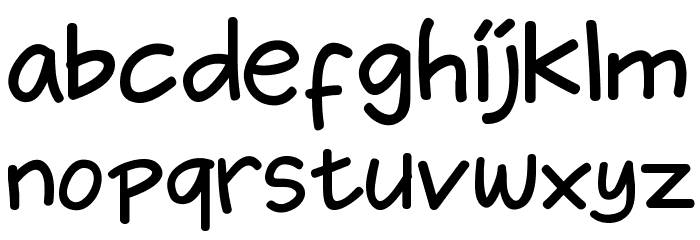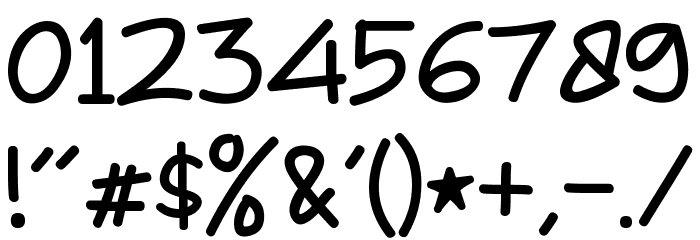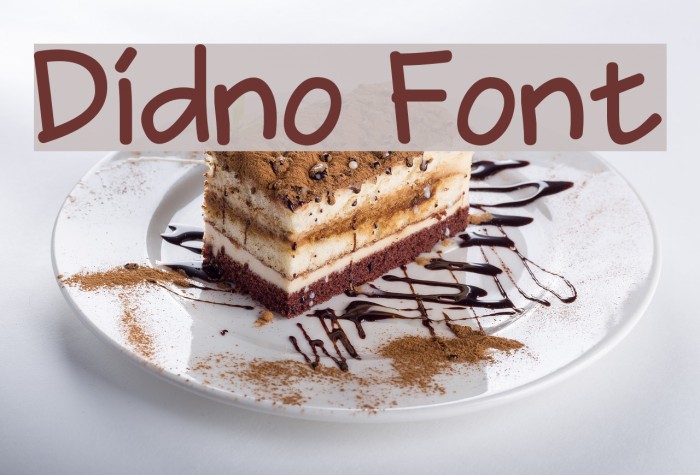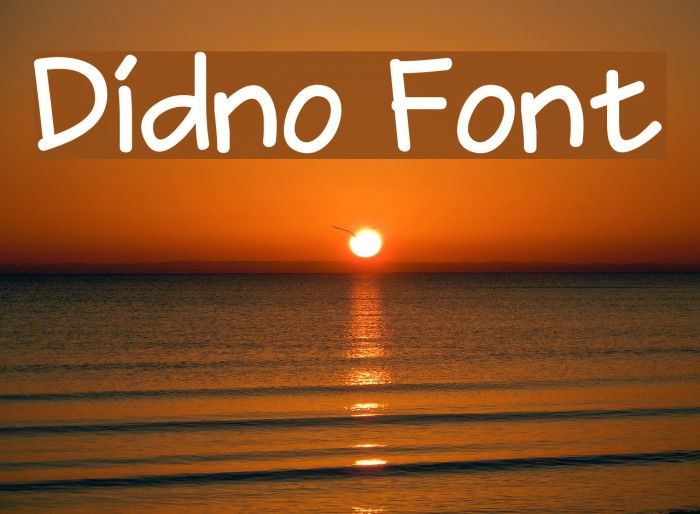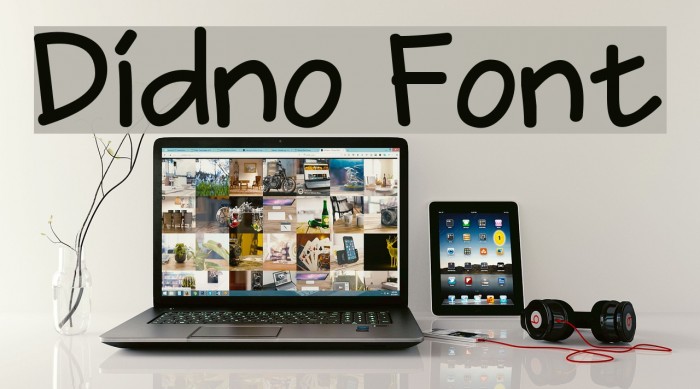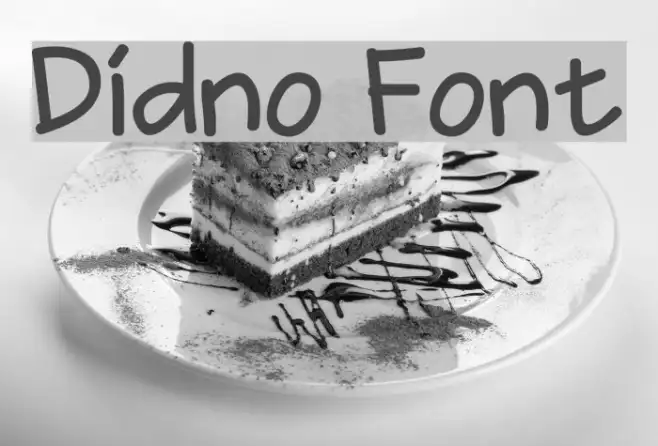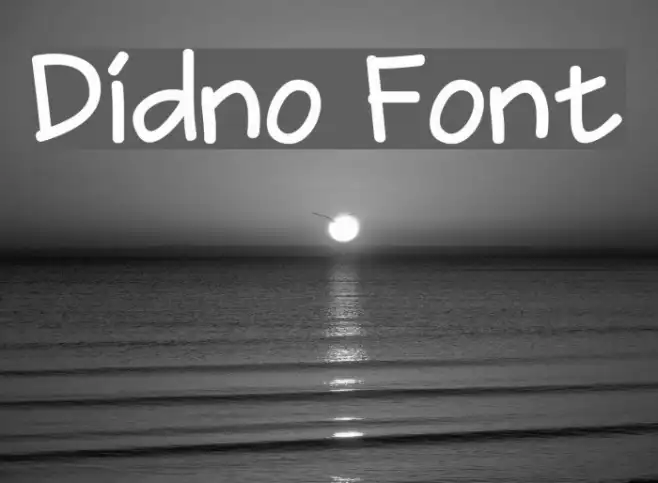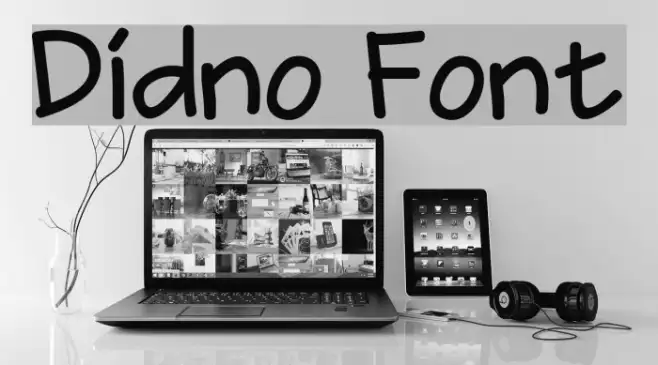
Didno Font
This playful and casual font features a handwritten style with rounded edges and a friendly appearance. The characters are slightly irregular, adding a personal touch that mimics natural handwriting. The uppercase and lowercase letters maintain a consistent flow, while the numerals and special characters complement the overall style. The font's informal nature makes it ideal for projects that require a warm and approachable feel.
A playful, handwritten font with rounded edges and a casual style.
- Proposed Projects: Ideal for children's books, greeting cards, casual branding, and social media graphics.
- Category: Handwritten
- Overall Style: Casual, Playful
- Use Case: Headlines, Informal text, Branding